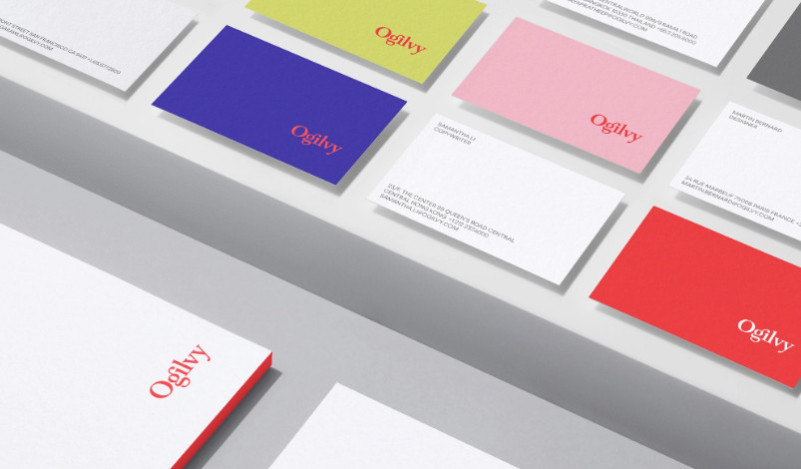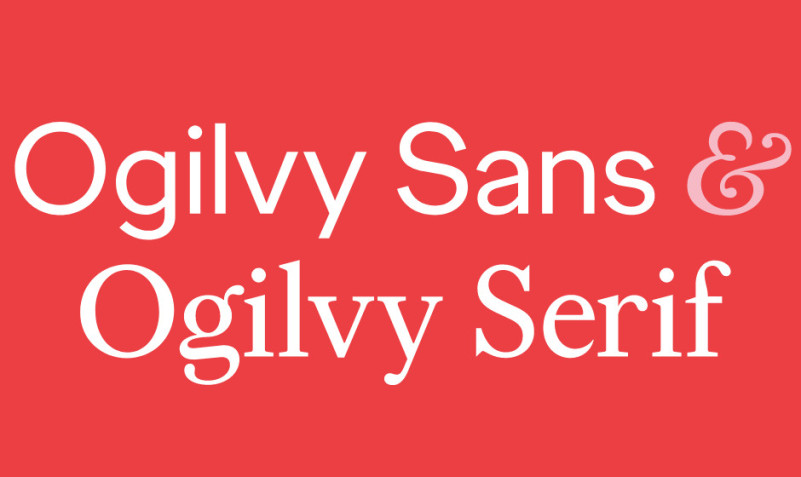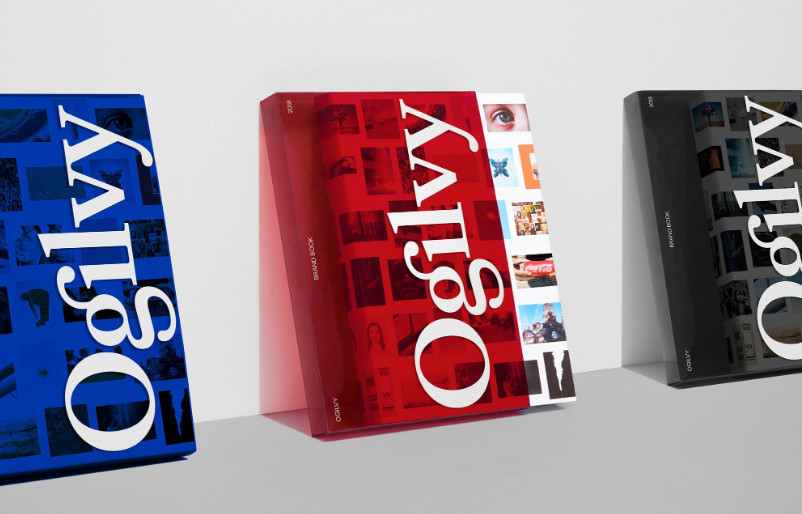
Ogilvy Font
Say hello to Ogilvy Font Duo, We worked with Collins to create a new logo and family of custom typefaces for Ogilvy, one of the largest advertising agencies in the world. For Ogilvy Serif, we took inspiration from Baskerville, founder David Ogilvy’s favorite typeface, but gave it sharpened details and unique constructions to make it undeniably contemporary. We also created Ogilvy Sans, with complementary proportions and range of weights.